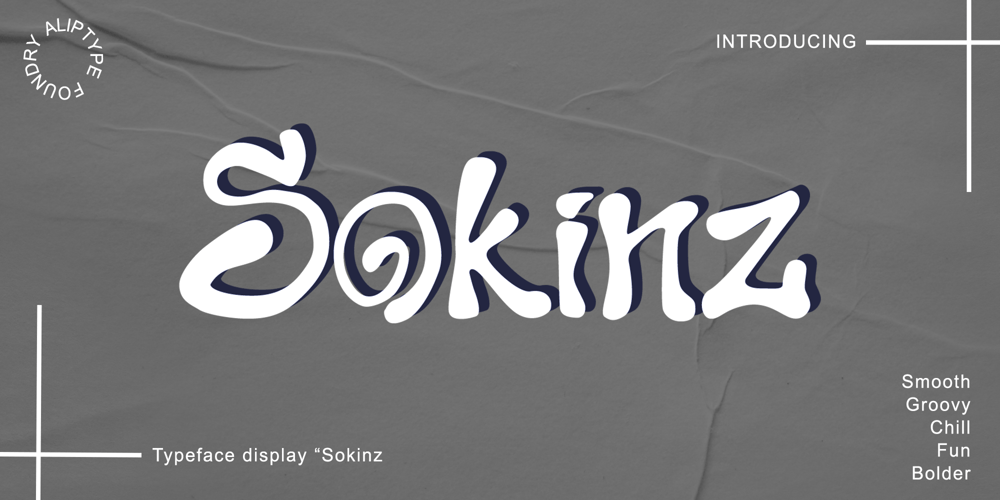
Sokinz
Sokinz font
Sokinz Font Family was designed by Muhamad Alip Fabio Mandaka and published by Aliptype. Sokinz contains 1 styles and family package options. Introducing Sokinz. Sokinz was round shapes, funky and playfull fonts, made carefully with handdrawn by combining two concepts of graffity style and groovy styles, you can use this font for your creative design, this font was suitable to make posters, pamflets, t-shirt, merch, apparels, brand names, gift cards, products tags,and many more can be discovered by using this fonts.